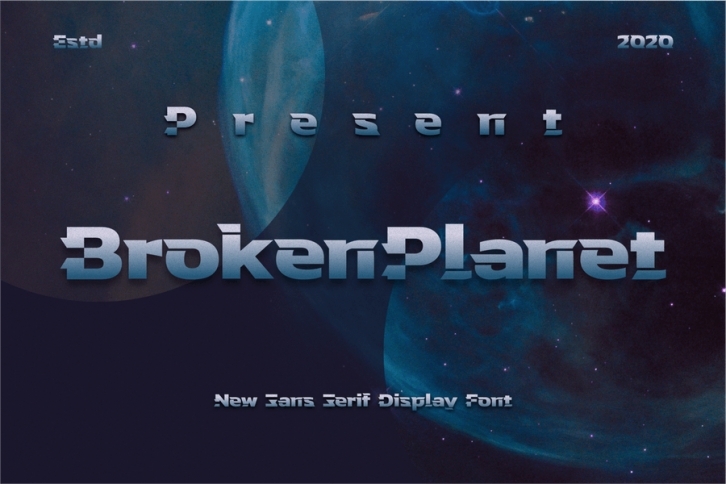
Introducing our new product Broken Planet font - Modern Font
Broken Planet font - Modern Font is a bold and authentic display font. The font is suitable for any branding project like logo, t-shirt printing, esport, and many more. outstanding in a wide range of contexts.